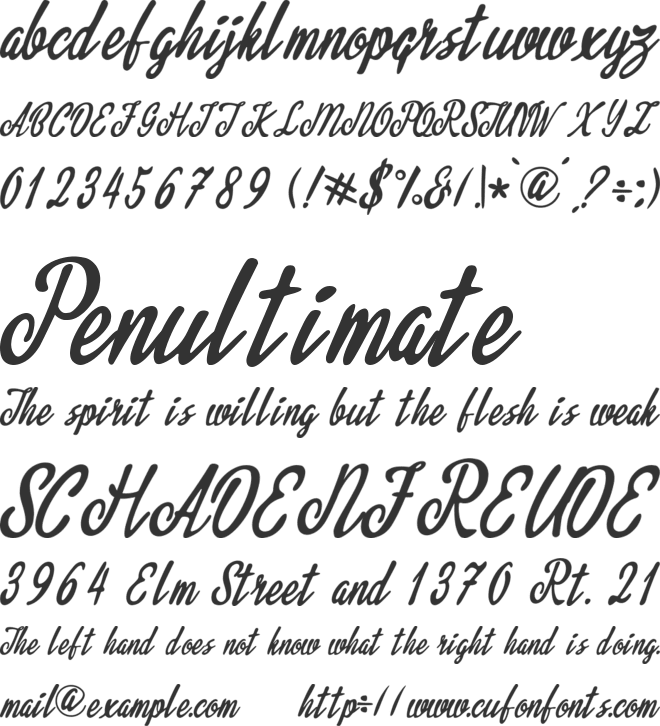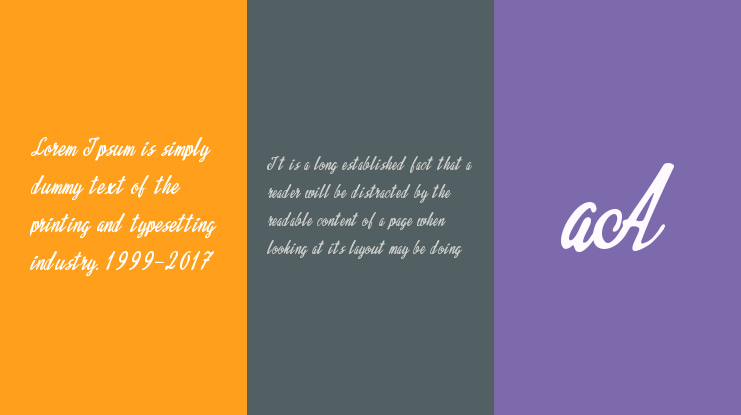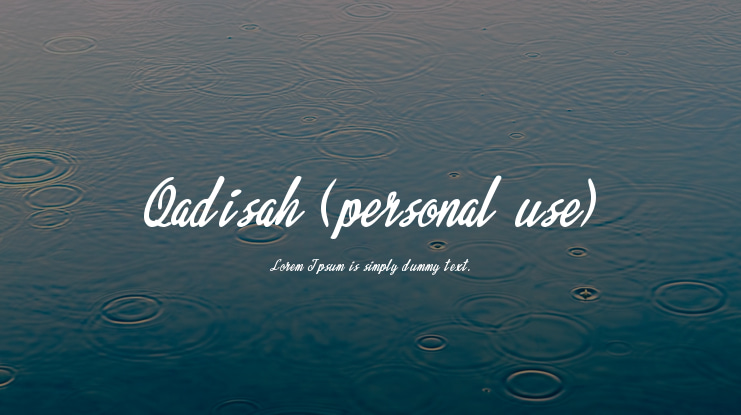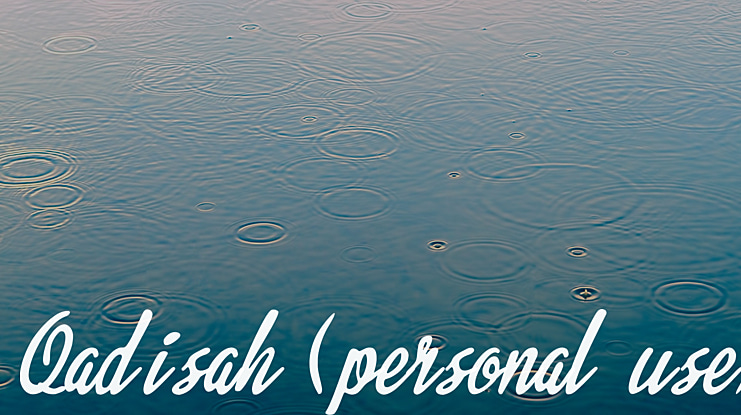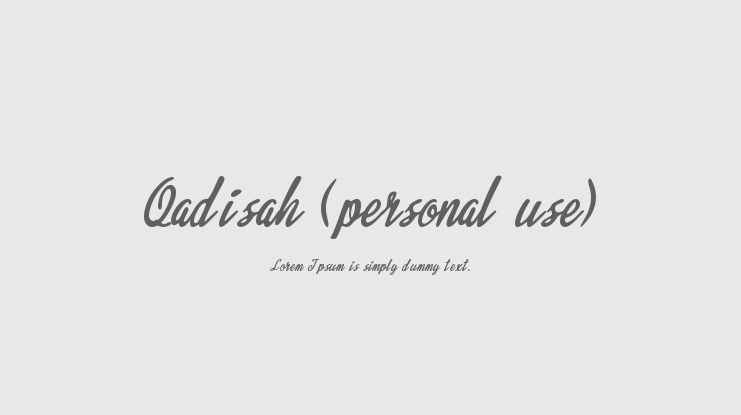
Qadisah (personal use) Font
Qadisah feels equally charming and elegant. It looks stunning on wedding invitations, thank you cards, quotes, greeting cards, logos, business cards and every other design which needs a handwritten touch. This font is PUA encoded which means you can access all of the glyphs and swashes with ease! It features a varying baseline, smooth lines, gorgeous glyphs and stunning alternates